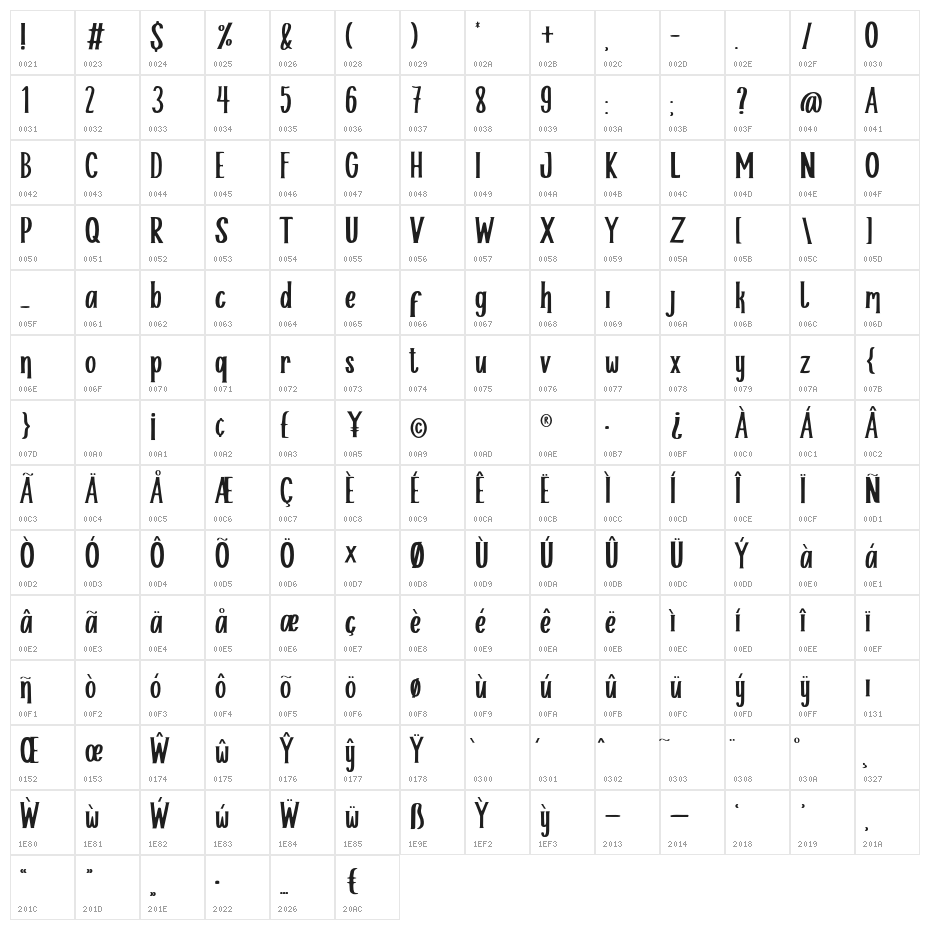
Helloria Font
Helloria Description
This font features a bold and playful style with a slightly condensed appearance. The uppercase letters are tall and narrow, with a whimsical flair that adds a touch of fun to the text. The lowercase letters maintain a consistent style, with rounded edges and a smooth flow. The numerals are well-proportioned and align seamlessly with the overall design. Special characters are creatively integrated, enhancing the font's unique personality. This font is ideal for projects that require a lively and engaging aesthetic, making it suitable for various creative applications.
Overall StylePlayful, Whimsical
Proposed ProjectsPerfect for children's books, playful branding, posters, and creative invitations.